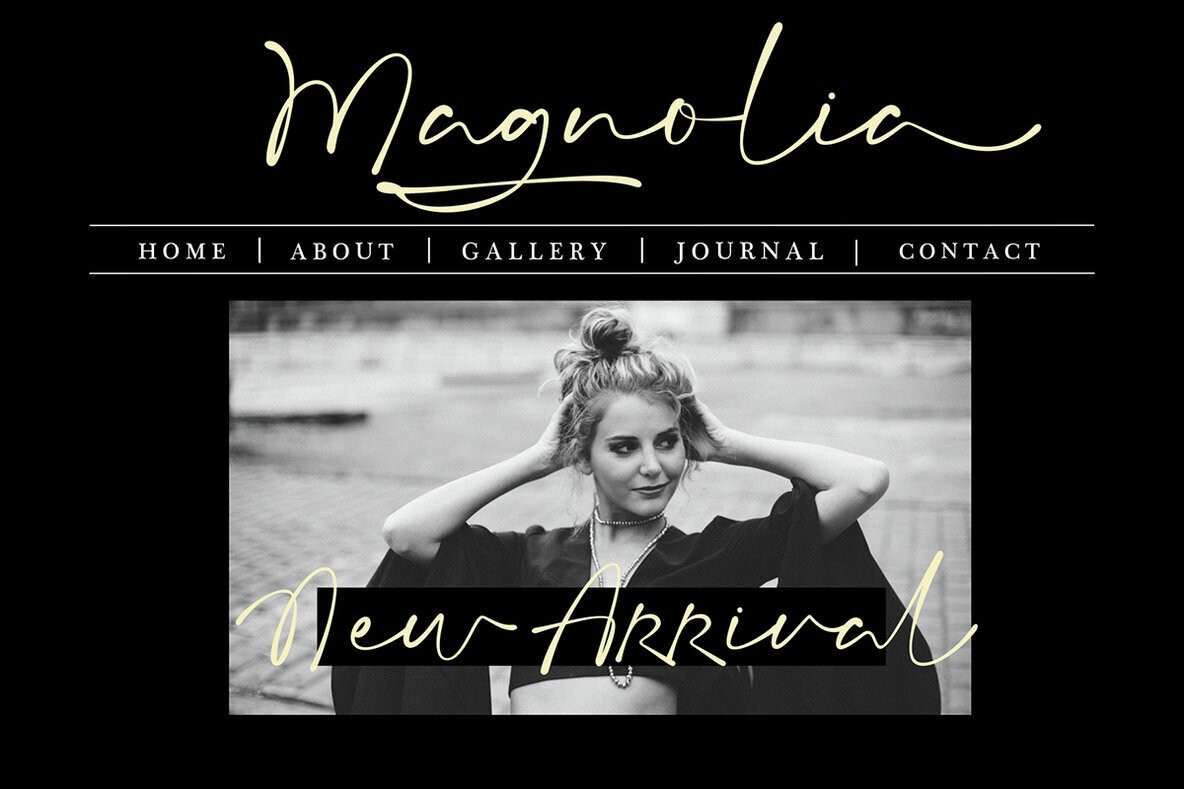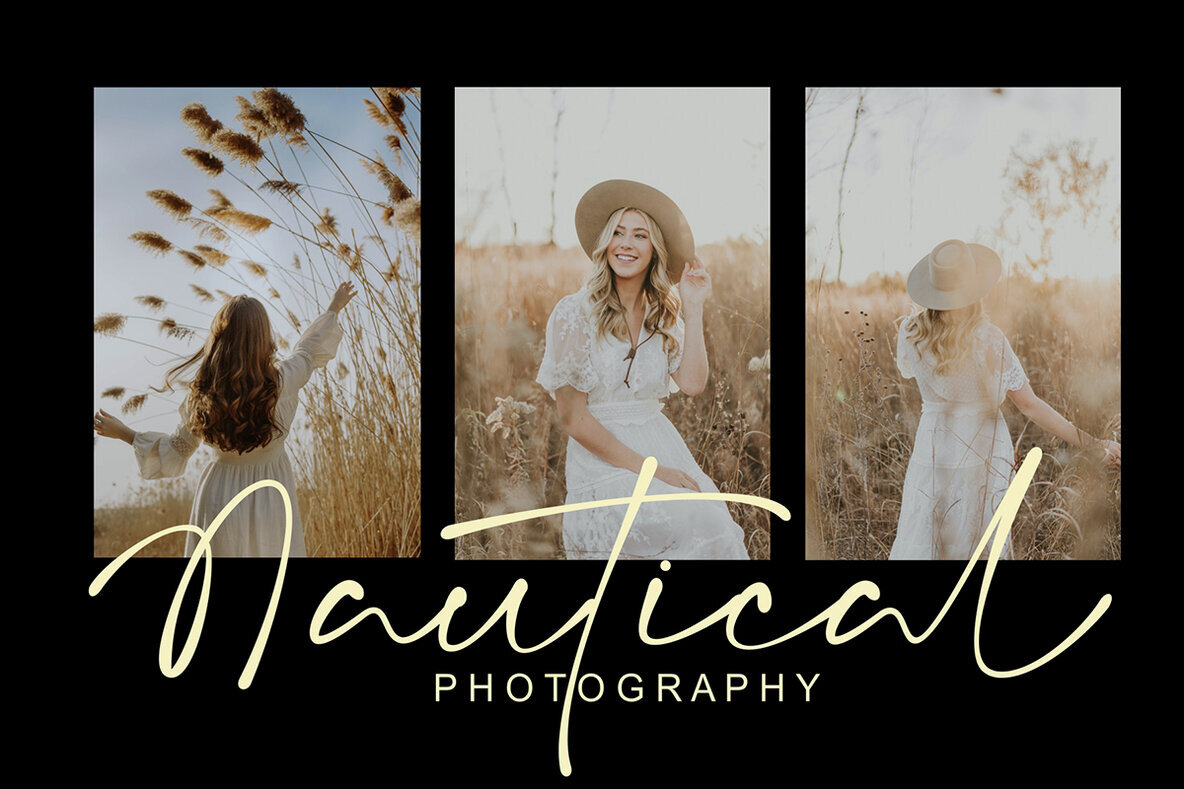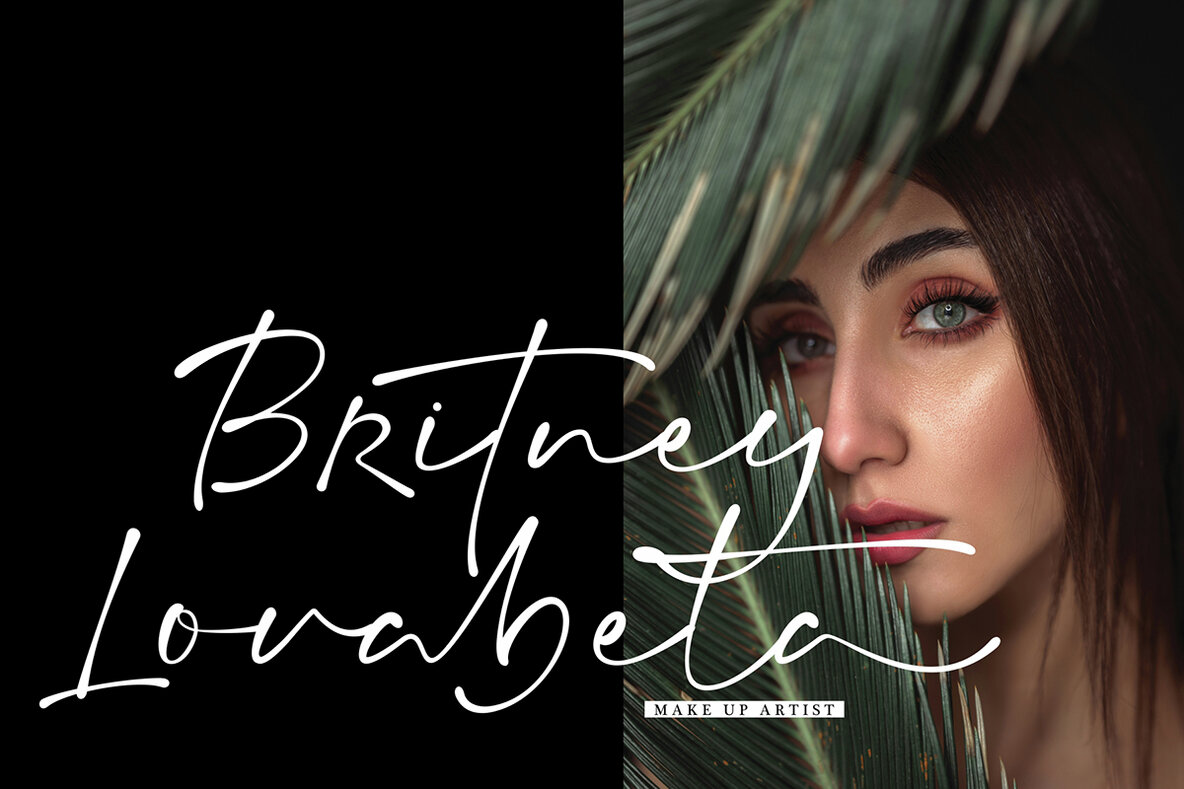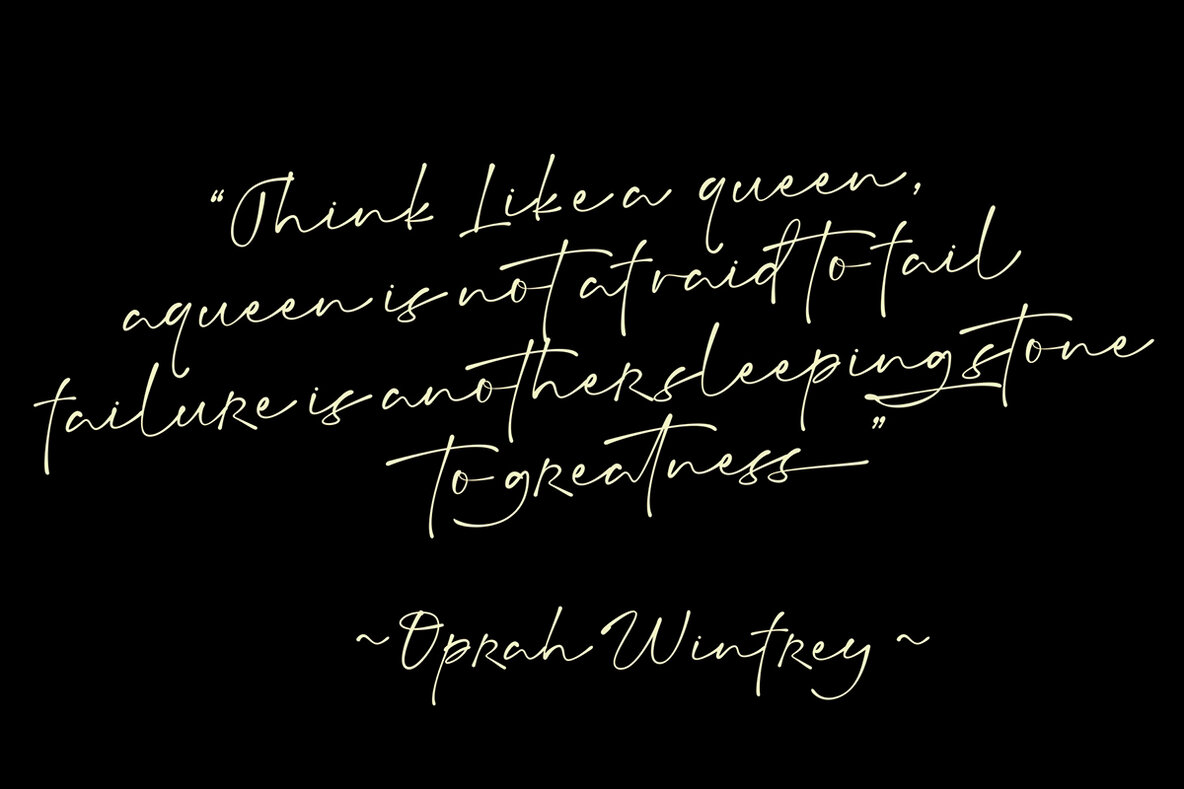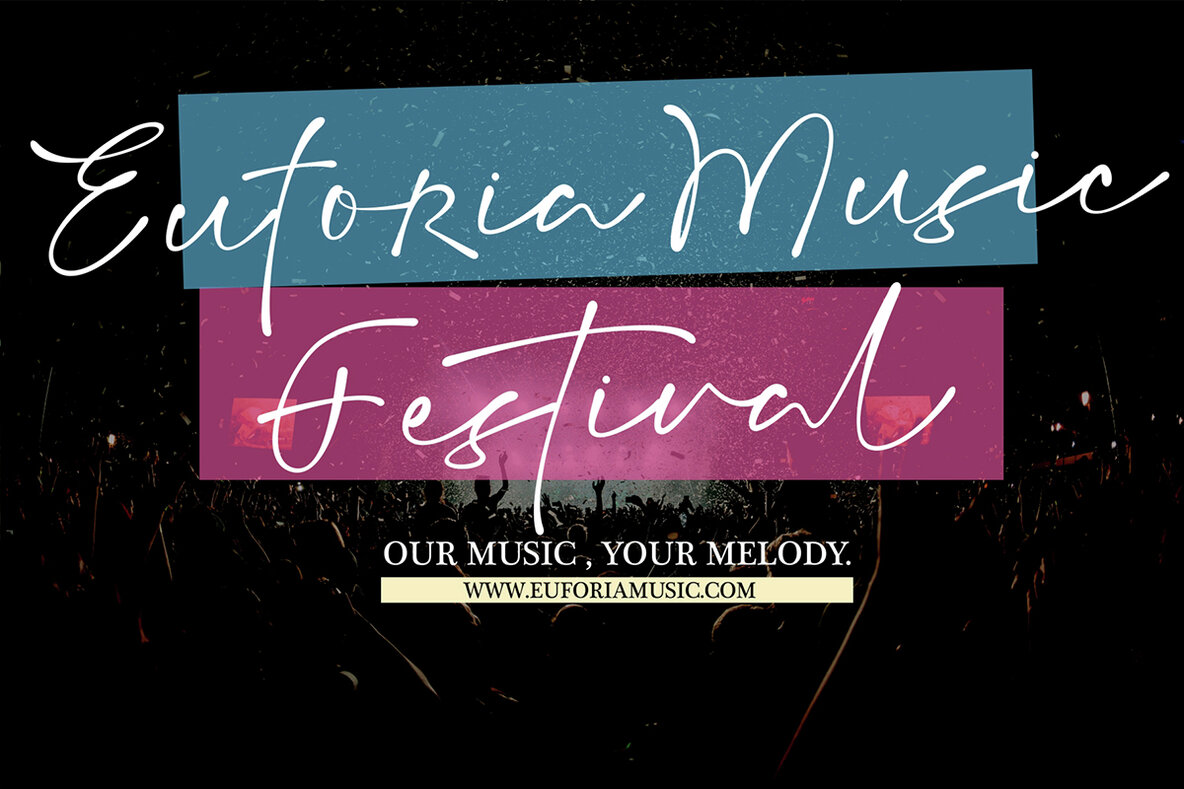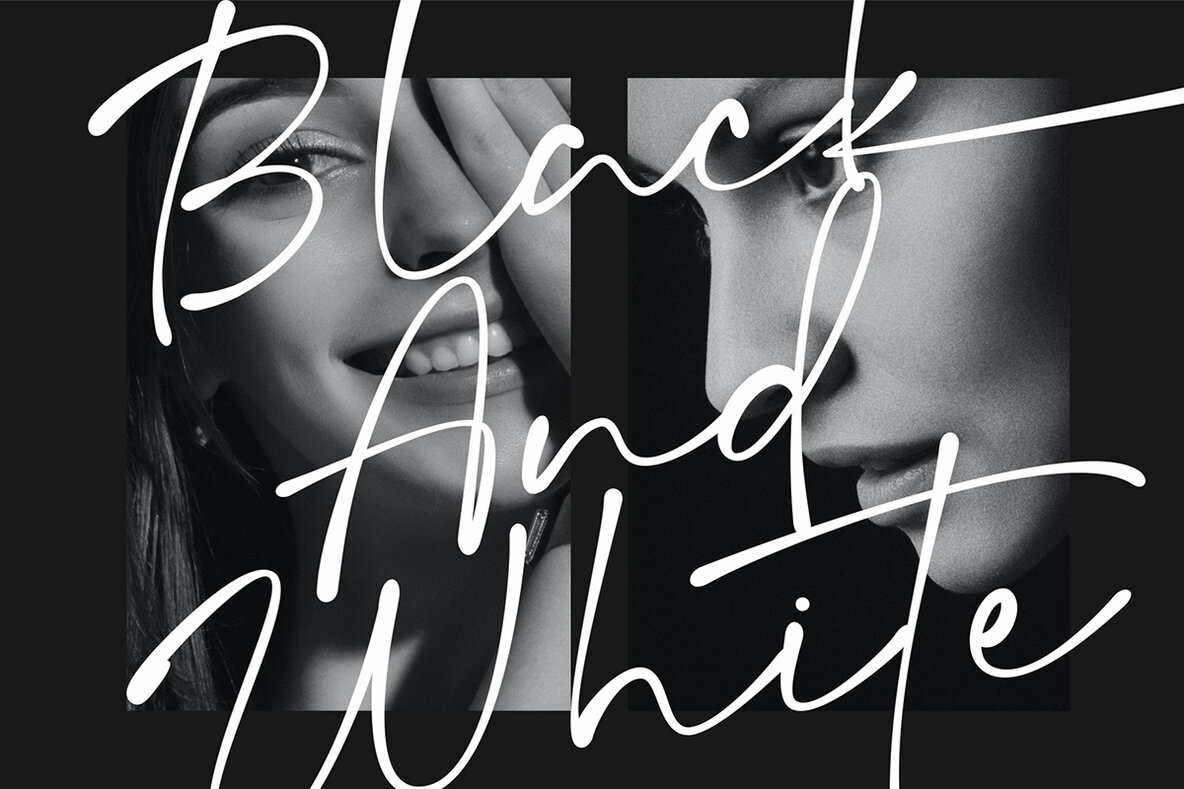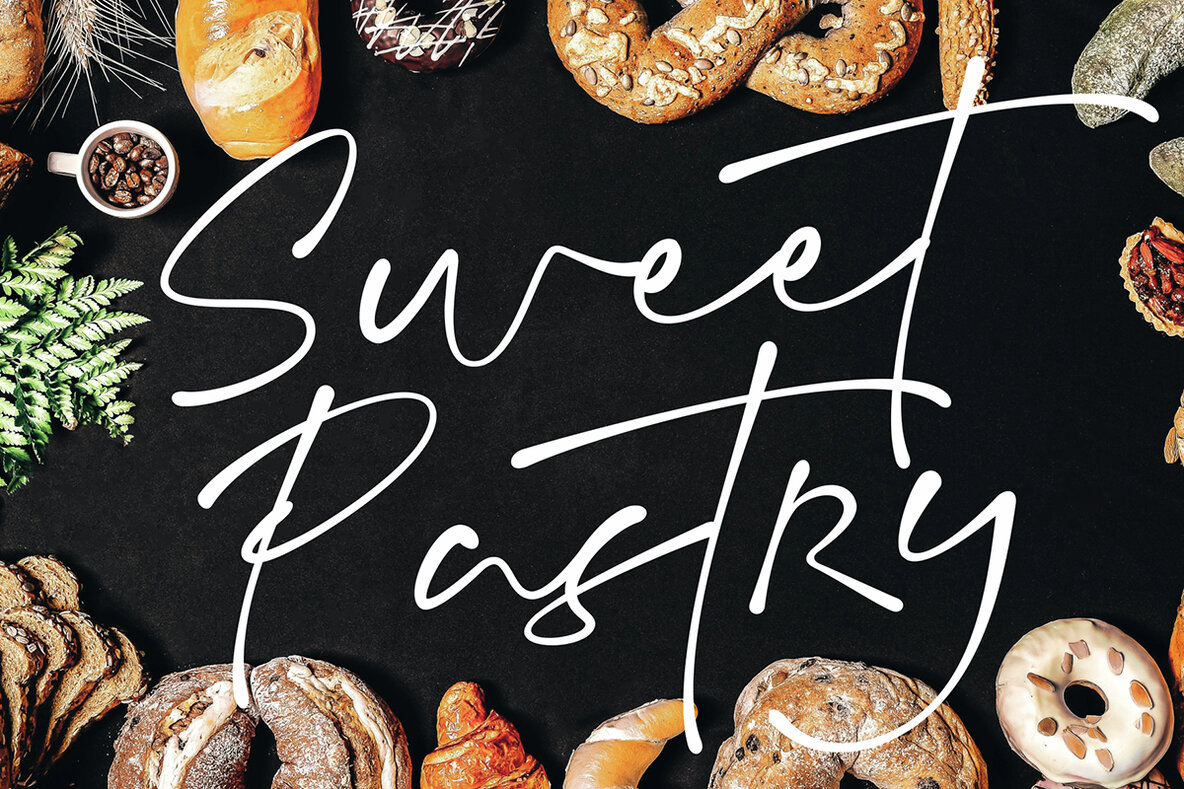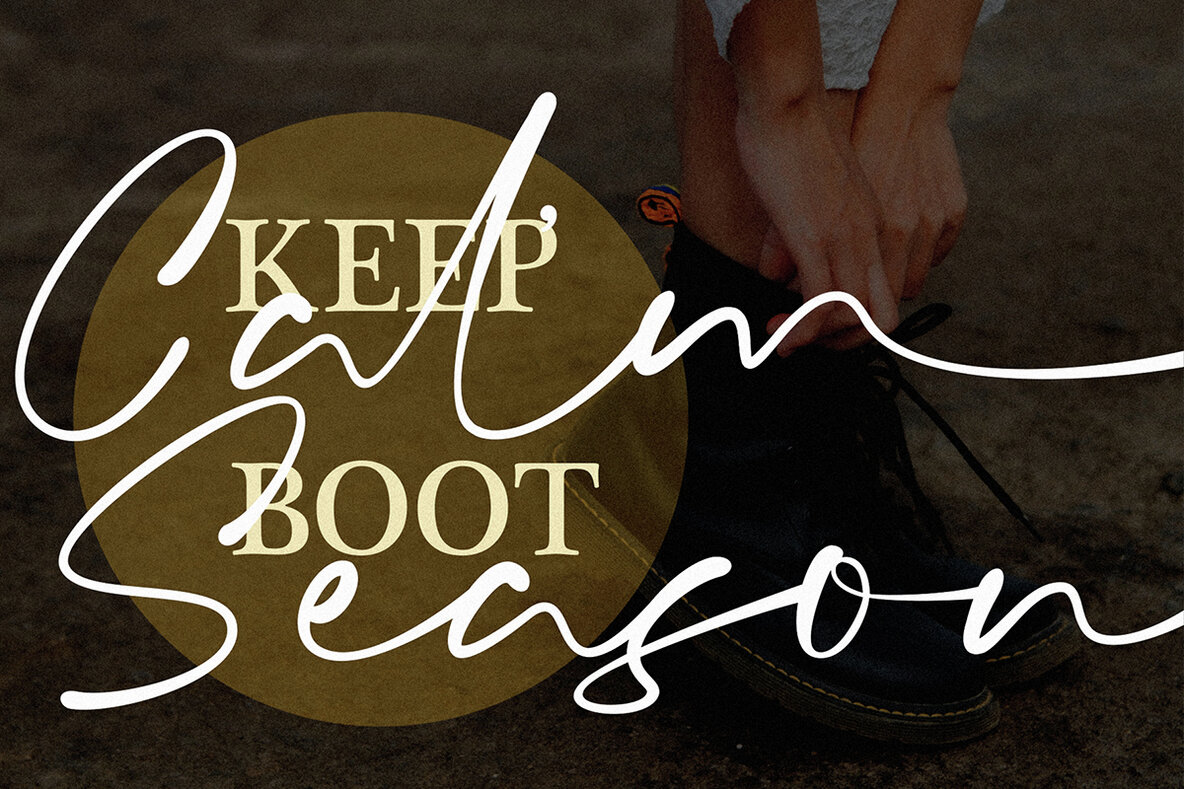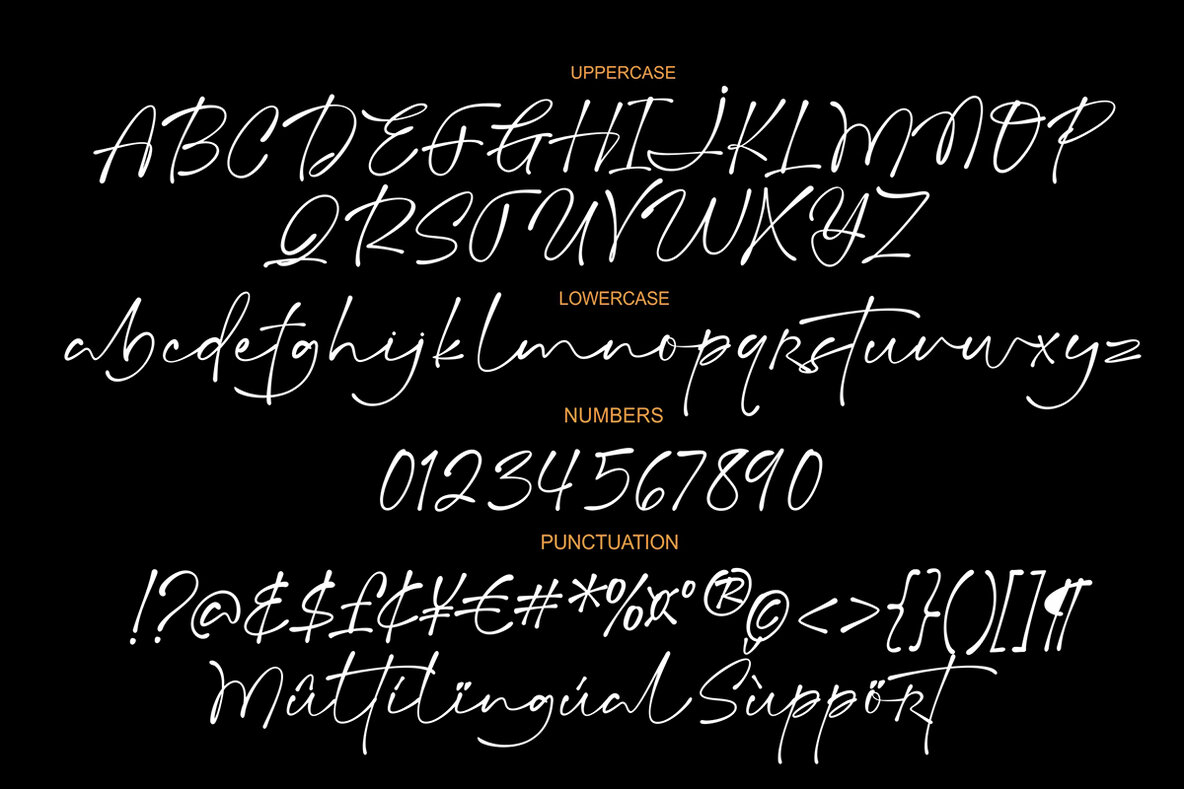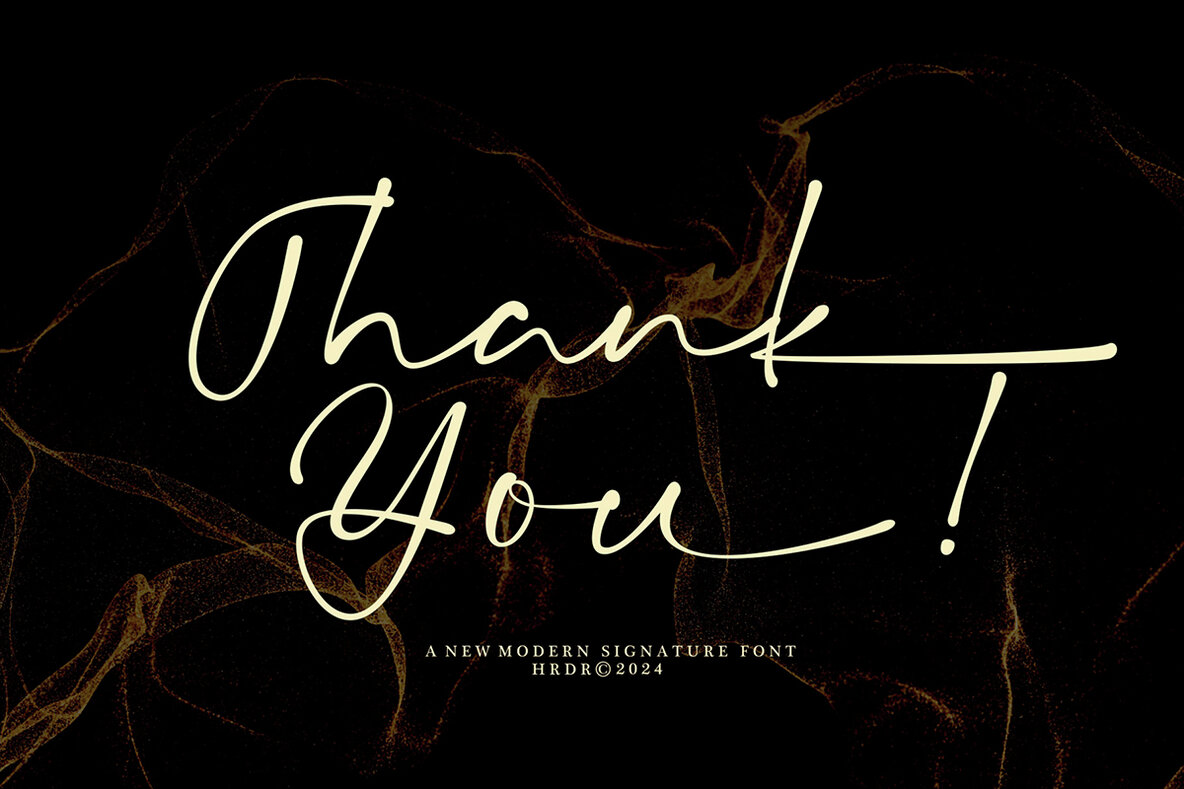
Mentalist Signature Font
Mentalist Signature
Introducing Mentalist Signature, a modern and elegant signature font designed for versatility. This sophisticated typeface is ideal for crafting visually appealing projects across various domains, such as branding, invitations, stationery, wedding designs, and social media posts. Its unique charm makes it suitable for advertisements, product packaging, product design, labels, posters, photography, and special events.
Mentalist Signature includes a comprehensive set of features: uppercase and lowercase letters, multilingual support, and numeric characters. Enhanced for creativity, it also offers ligatures and stylistic alternates (Ss01 & Ss02), allowing for customized and stylistic text presentations. This font seamlessly fits into your favorite design projects, ensuring elegance and readability across all platforms.